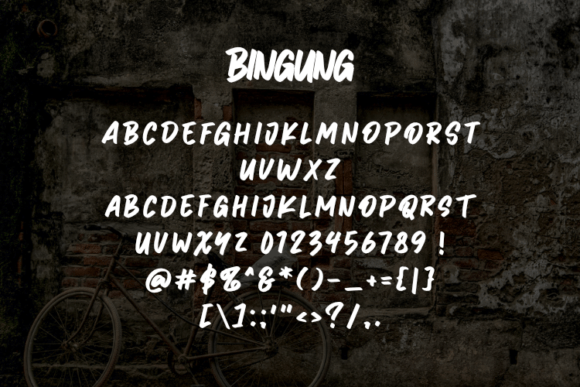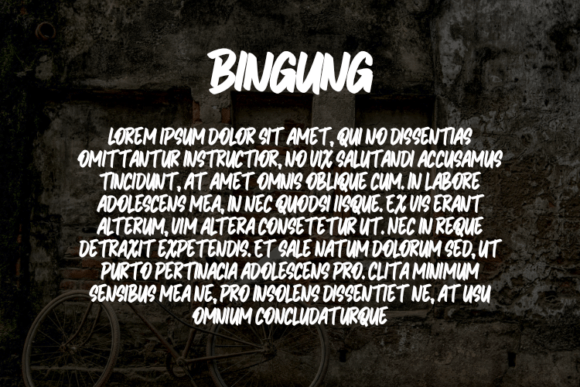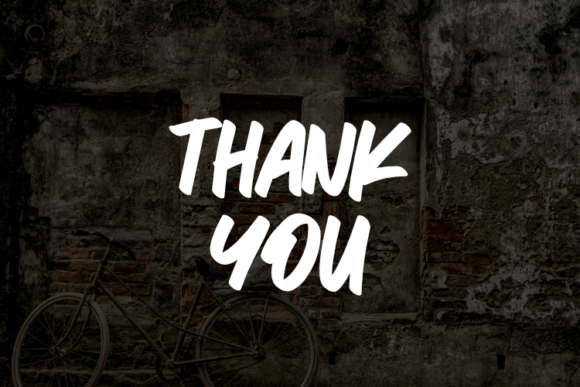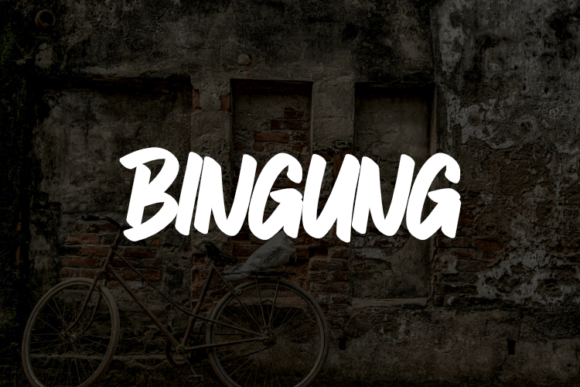
Unleash Your Creativity with Bingung Font: The Ultimate Design Companion
In the world of design, fonts play a crucial role in bringing ideas to life. Among the numerous fonts available, one stands out for its exceptional versatility and impact: Bingung. This unparalleled font is specifically designed for clothing and product design, offering a flawless experience for professionals and enthusiasts alike. In this article, we’ll explore the features, benefits, and applications of Bingung, and how it can elevate your design projects to new heights.
What is Bingung Font?
Bingung is a unique and adaptable font, carefully crafted to meet the demands of modern design. Its exceptional features make it an ideal choice for a wide range of applications, from t-shirt designs to product labels, and everything in between. Whether you’re a seasoned designer or a crafty enthusiast, Bingung is designed to fuel your creativity and inspire your next project.
Key Features of Bingung Font
• Exceptional Adaptability: Bingung seamlessly integrates into every software environment and design demand, ensuring a smooth and hassle-free experience.
• Universal Application Range: From clothing and product design to branding and marketing materials, Bingung’s versatility knows no bounds.
• Distinguishing Features: Bingung’s unique design elements set it apart from other fonts, making it a standout choice for designers seeking to create a lasting impression.
Applications of Bingung Font
Bingung’s adaptability and impact make it an excellent choice for a wide range of design projects, including:
• T-Shirt Designs: Create stunning, eye-catching designs that demand attention and leave a lasting impression.
• Product Labels: Elevate your product labels with Bingung’s unique and captivating design, setting your products apart from the competition.
• Branding and Marketing Materials: Use Bingung to create cohesive and recognizable brand identities that resonate with your target audience.
Benefits of Using Bingung Font
By incorporating Bingung into your design workflow, you’ll experience a range of benefits, including:
• Enhanced Creativity: Bingung’s unique features and adaptability will inspire you to push the boundaries of your creativity.
• Increased Productivity: With Bingung’s seamless integration and flawless performance, you’ll be able to complete projects more efficiently.
• Professional-Grade Results: Bingung’s exceptional design and versatility will help you achieve professional-grade results, every time.
Font Name Bingung Font
Author Eric Kusuma
In conclusion, Bingung is an unparalleled font that offers a world of creative possibilities for designers and crafters. Its exceptional adaptability, unique features, and universal application range make it an ideal choice for a wide range of design projects. With Bingung, you’ll be able to unleash your creativity, elevate your designs, and achieve professional-grade results. So why wait? Discover the power of Bingung and take your design ambitions to new heights.